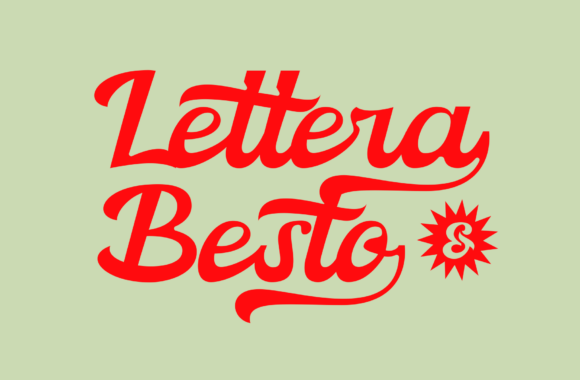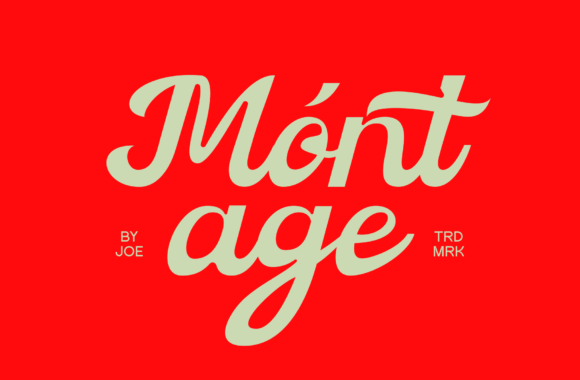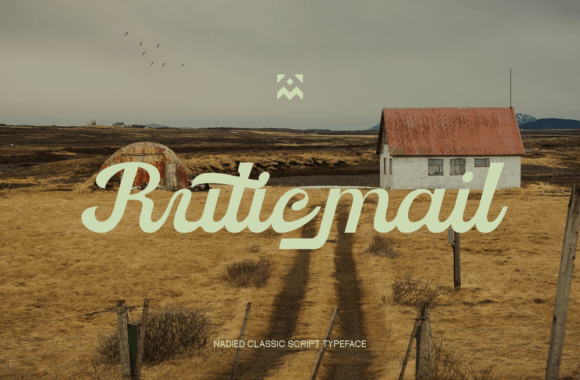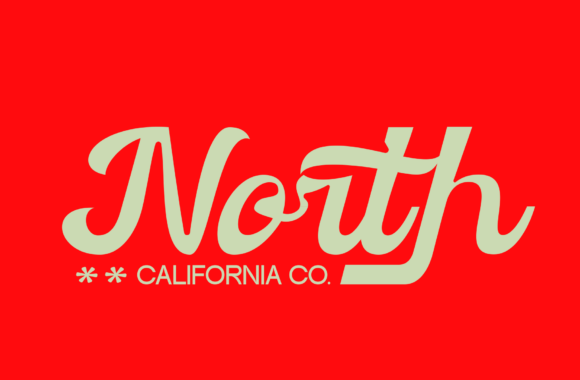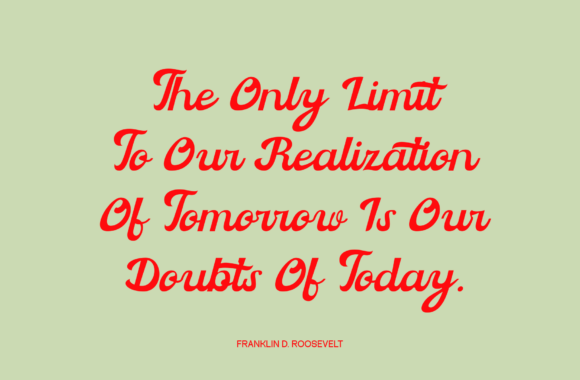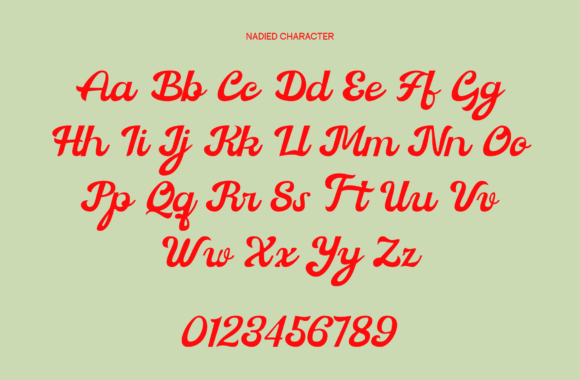
Introduction to Nadied Font Font
Fonts play a crucial role in design, and the Nadied Font font is a typeface that brings both character and versatility to any project. Whether you’re working on a branding project, a website, or a print design, the Nadied Font font offers a unique style that can elevate your work.
Introducing **Nadied** is a Script & Handwritten font that embodies a blend of elegance and classic appeal.
Its characters are crafted with a distinct sense of sophistication, making it suitable for a wide range of design applications Each letterform has its own unique touch, which adds a personalized feel to the overall design.
Key Features of Nadied Font Font
Why Choose Nadied Font Font?
The Nadied Font font is more than just a typeface – it’s a design tool that helps you communicate your message with style and clarity. Its unique character set and versatile design make it suitable for a wide range of applications, from elegant invitations to bold headlines.
With its carefully crafted letterforms and balanced proportions, the Nadied Font font ensures readability and visual appeal across all mediums.
What makes Nadied Font font special?
The Nadied Font font stands out with its unique design, exceptional readability, and versatility across various design applications.